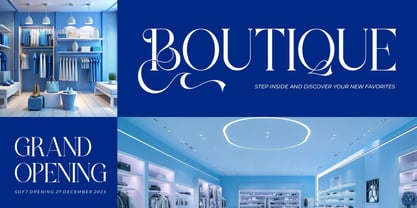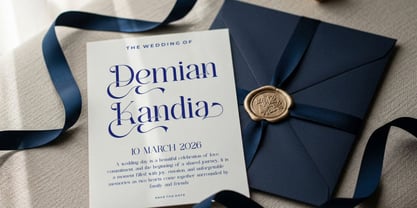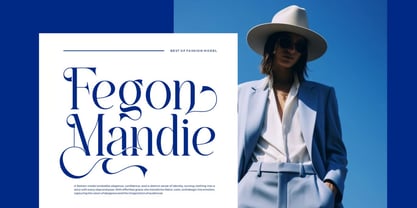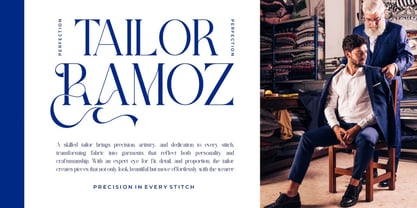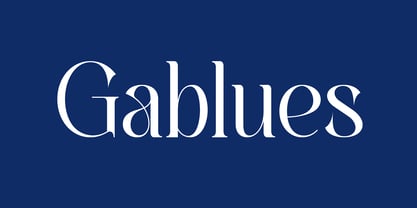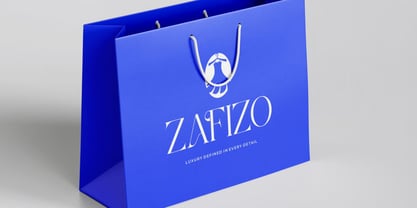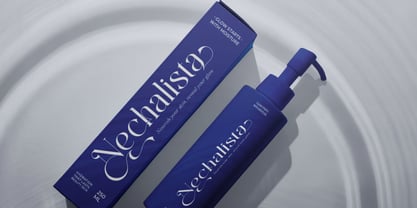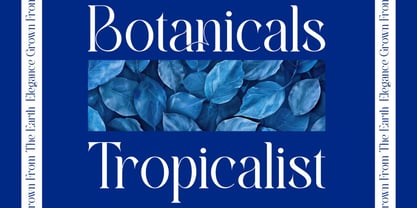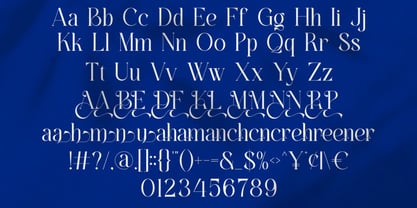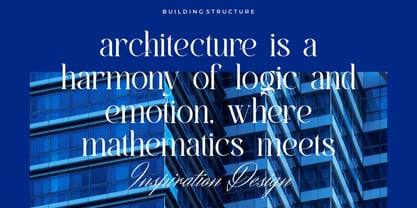
Gablues
Gablues is an elegant and sophisticated serif font designed to bring luxury, refinement, and timeless beauty to your creative projects. With its graceful letterforms, stylish ligatures, and beautifully crafted alternates, Gablues delivers a premium typographic experience that effortlessly enhances branding, logos, editorials, and high-end visual designs.
Created for designers who appreciate both classic elegance and modern aesthetics, Gablues exudes confidence, style, and professionalism. Its smooth serif structure and distinctive details make it a perfect choice for creating memorable brand identities, captivating headlines, and luxurious marketing materials.
Whether you're designing logos, invitation cards, movie titles, book covers, business cards, packaging, fashion branding, social media content, or editorial layouts, Gablues provides the versatility and elegance needed to make every project stand out.
✿ Key Features:
• Elegant Serif Design: A refined and luxurious serif style with timeless appeal.
• Beautiful Ligatures: Professionally crafted ligatures for seamless typography.
• Stylish Alternates: Unique alternate characters for creative and customized designs.
• Uppercase & Lowercase Letters: Complete character set for maximum versatility.
• Numbers & Punctuation: Essential symbols for professional typography.
• Smooth & Sophisticated Letterforms: Designed to create elegant visual compositions.
• High-Quality Craftsmanship: Perfectly balanced characters for print and digital applications.
✿ Perfect For:
• Luxury Branding & Logo Design: Build memorable and premium brand identities.
• Invitation & Wedding Designs: Add elegance and sophistication to special occasions.
• Movie Titles & Film Posters: Create dramatic and eye-catching typography.
• Book Covers & Editorial Design: Perfect for magazines, novels, and publishing projects.
• Business Cards & Corporate Branding: Enhance professionalism and visual appeal.
• Packaging & Product Labels: Ideal for beauty, fashion, lifestyle, and luxury products.
• Social Media & Advertising: Create stunning promotional graphics with a high-end aesthetic.
Elevate your typography with Gablues—a classy and luxurious serif font crafted for designers, brands, and creatives who demand elegance, sophistication, and timeless style. Create stunning logos, premium branding, beautiful invitations, and unforgettable visual experiences with this versatile serif masterpiece.